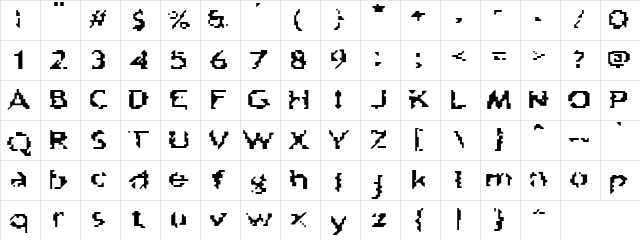
Damn the Man Regular
Design Context for Damn the Man
Damn the Man is a composed and adaptable typeface that performs quietly and consistently across a wide range of design contexts.